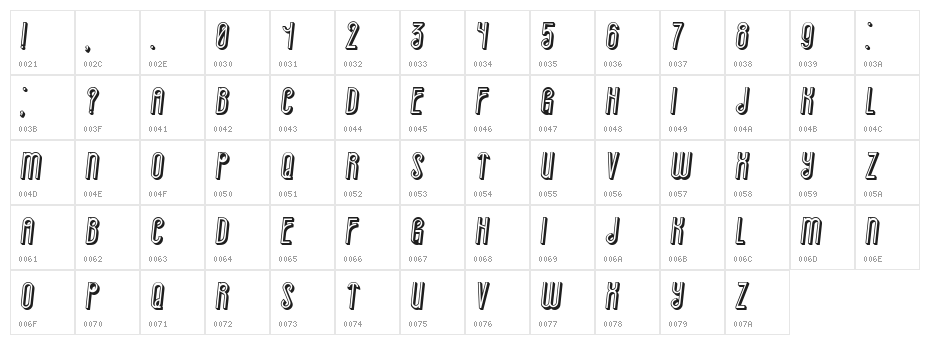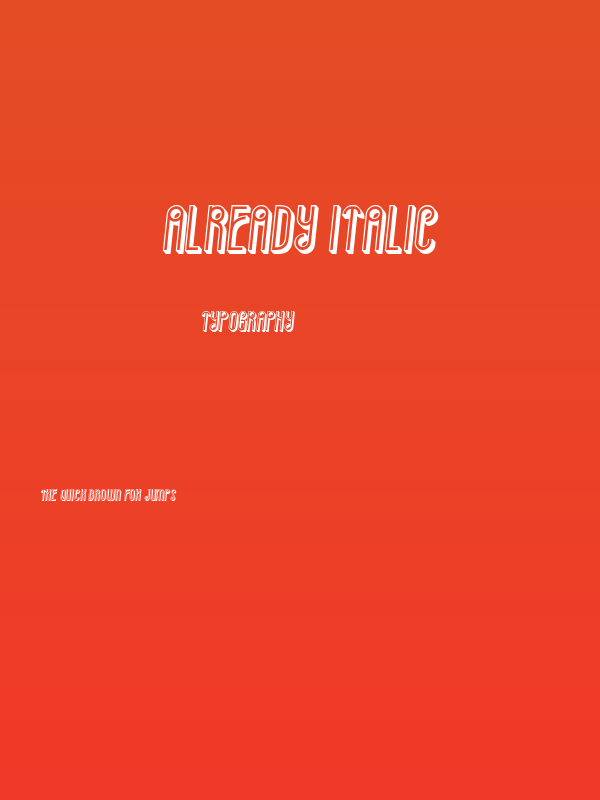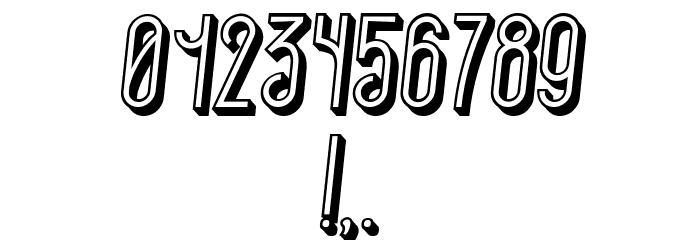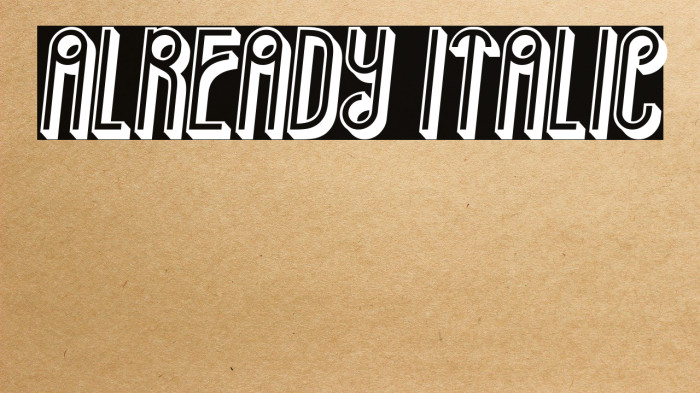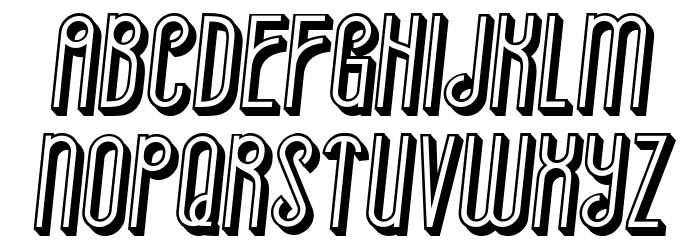
Already Italic Font
Already Italic Description
This font features a bold, decorative style with a distinct 3D shadow effect that gives it a dynamic and eye-catching appearance. The characters are uppercase and lowercase letters, along with numbers and a few special symbols. Each letter is designed with a consistent width and a slightly condensed form, enhancing its bold presence. The font's shadow effect adds depth and a playful touch, making it suitable for creative and modern designs. The strokes are uniform, contributing to a medium contrast that balances readability with style.
| Proposed Projects | Ideal for posters, headlines, logos, and any design requiring a bold, standout typeface. |